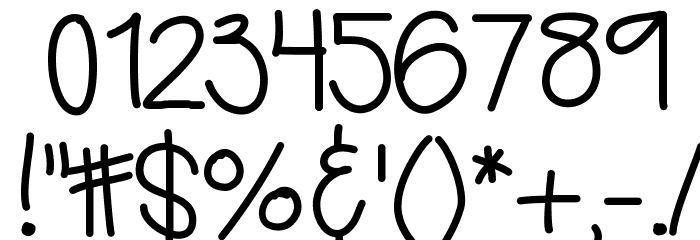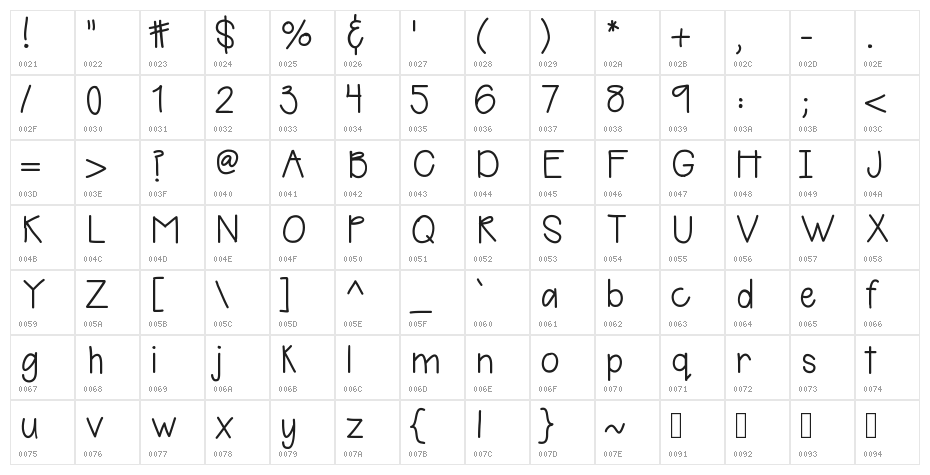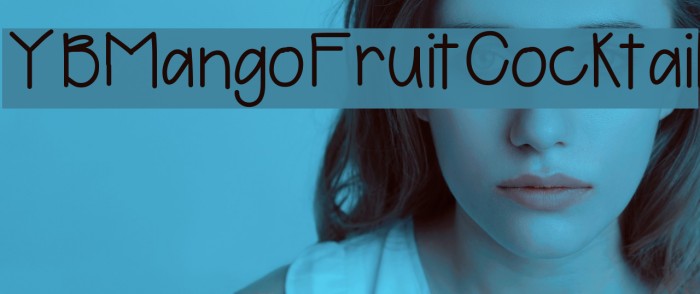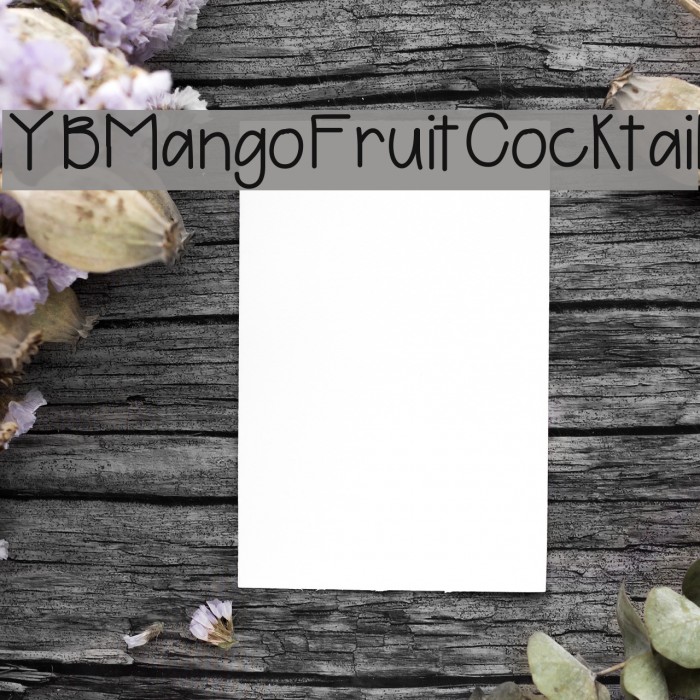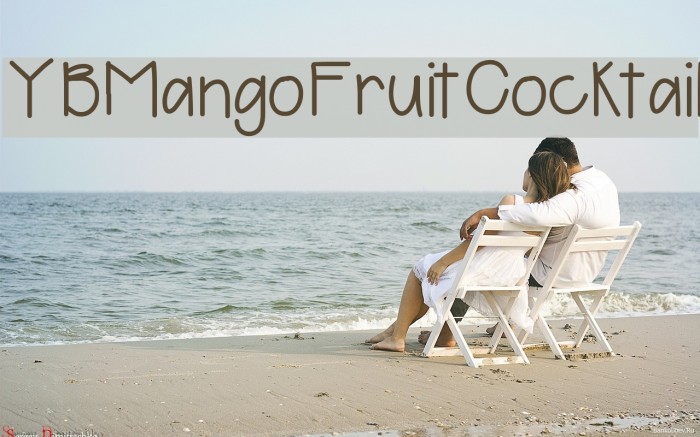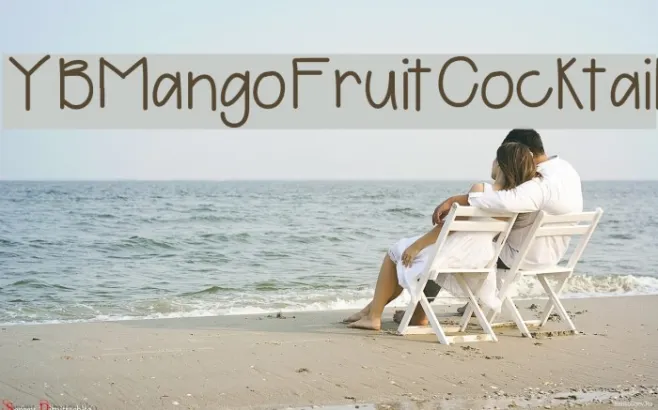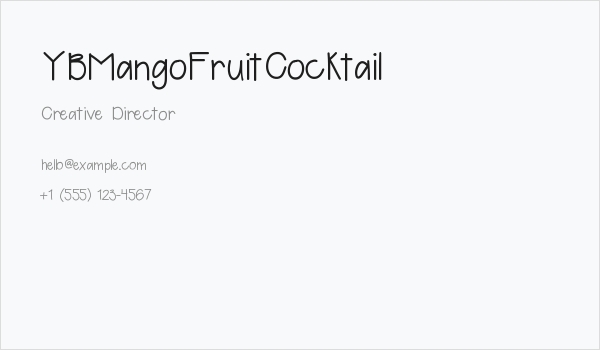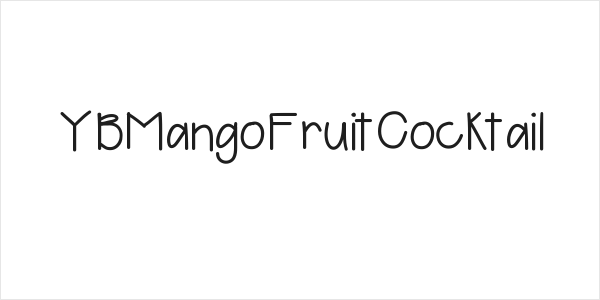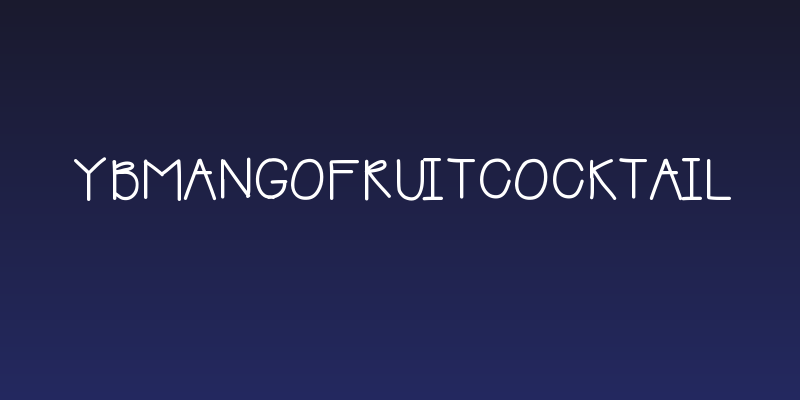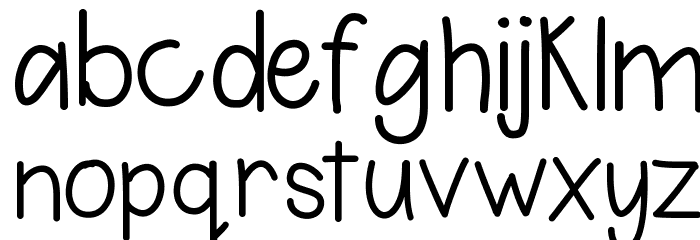
YBMangoFruitCocktail Font
YBMangoFruitCocktail Description
This playful and whimsical font features a handwritten style with a casual and friendly appearance. The characters are rounded and slightly irregular, giving it a charming and approachable feel. The uppercase letters are bold and prominent, while the lowercase letters maintain a consistent flow with a touch of quirkiness. Numbers and special characters are designed to match the overall playful aesthetic, making this font suitable for creative and informal projects. The strokes are consistent in weight, providing a uniform look across all characters.
| Proposed Projects | Ideal for children's books, greeting cards, playful branding, and casual invitations. |